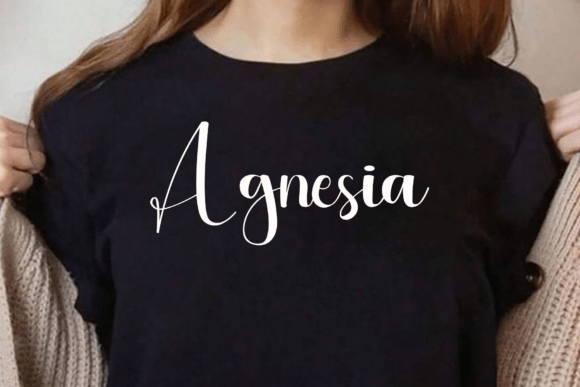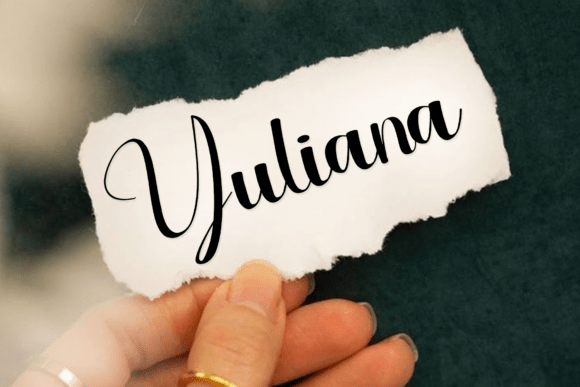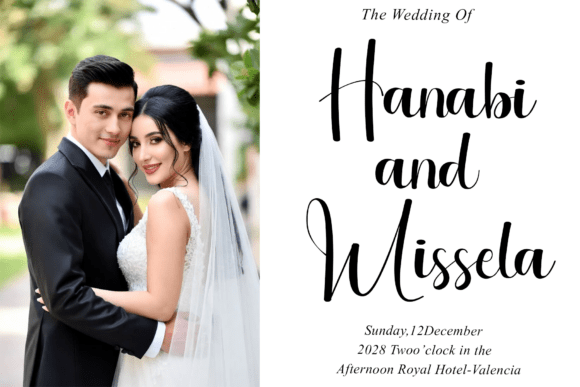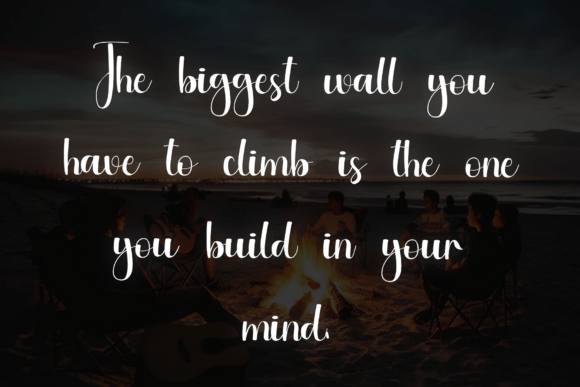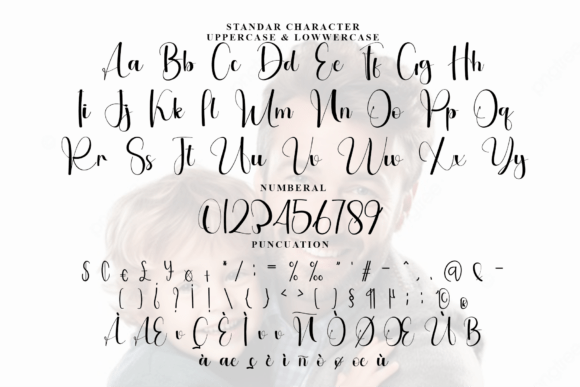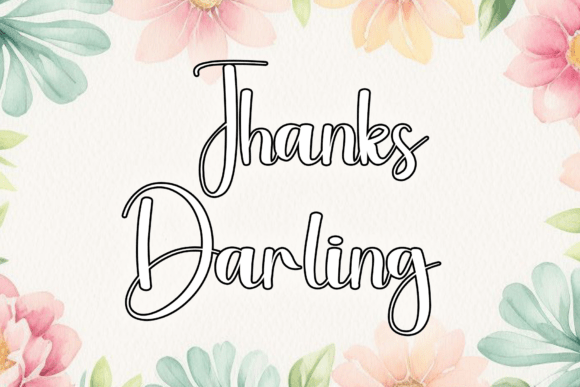
Introduction to Magical Grils Font
Have you ever been brainstorming a creative project and suddenly, the perfect font pops into your mind? For designers, this is a moment of pure magic. It’s the spark that sets the tone for an entire project, and when it’s just right, it can elevate even the most mundane ideas into something truly special. For me, that font is Magical Grils Font – a modern handwritten masterpiece that never fails to inspire.
With its crisp elegance and refined aesthetic, Magical Grils Font is the perfect addition to any design project. Whether you’re working on a travel photography blog, creating branding for outdoor gear, or designing a sophisticated website, this font is sure to bring a touch of magic to your work.
Key Features of Magical Grils Font
- Unique and playful design with a touch of magic, perfect for creative projects and designs.
- High-quality font with a transparent background, allowing for easy customization and layering in your design.
- Resolution-independent design ensures crisp and clear text, even at high resolutions, making it ideal for print and digital designs.
- Magical Grils Font is designed to be versatile, suitable for a wide range of creative projects, from logos and branding to illustrations and typography.
- Comes with a comprehensive character set, including uppercase and lowercase letters, numbers, and special characters, to cater to diverse design needs.
Honest Review: Magical Grils Font
I recently stumbled upon the Magical Grils Font, and I must say it’s been a game-changer for my creative projects. This font is perfect for designers who want to add a touch of whimsy and magic to their work.
What works well: ✨ The font has a transparent background, making it super easy to use with any design resource. The high-quality design is stunning, and I love the unique style it brings to my projects.
Here are some of the key features I love about Magical Grils Font:
- High-quality design: The font is expertly crafted, with beautiful details that make it stand out.
- Perfect for creative projects: Whether it’s a logo, poster, or digital art, Magical Grils Font is sure to add a touch of magic.
Limitations: ⚠️ While I love the font, I do wish it came in more variations. Sometimes, I wish I had more options to choose from, but overall, it’s a minor complaint.
Overall impression: Magical Grils Font is a fantastic addition to any designer’s toolkit. It’s perfect for adding a touch of magic to your creative projects, and the free download makes it accessible to designers of all levels.
Tips for Getting the Most Out of Magical Grils Font
Magical Grils Font is suitable for a variety of creative projects, including logos, posters, and social media graphics. Its high-quality design and transparent background make it a great resource for designers looking to create visually appealing and engaging designs.